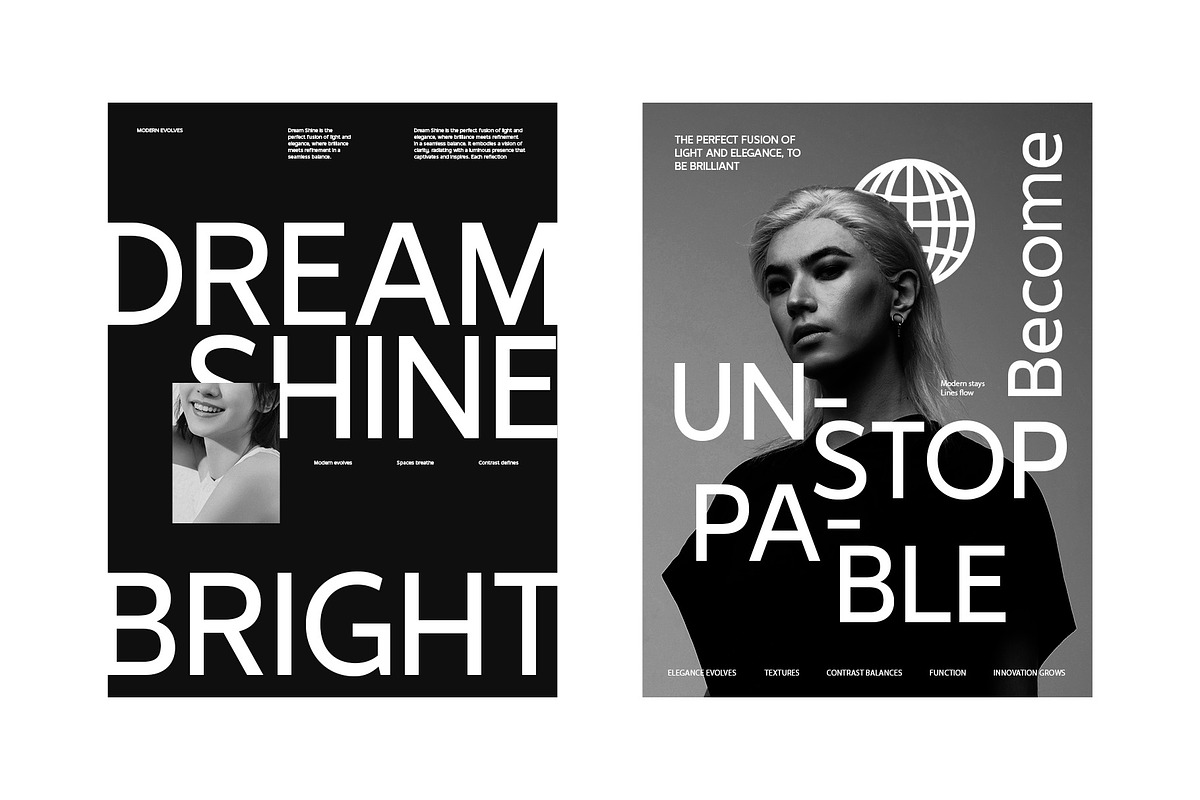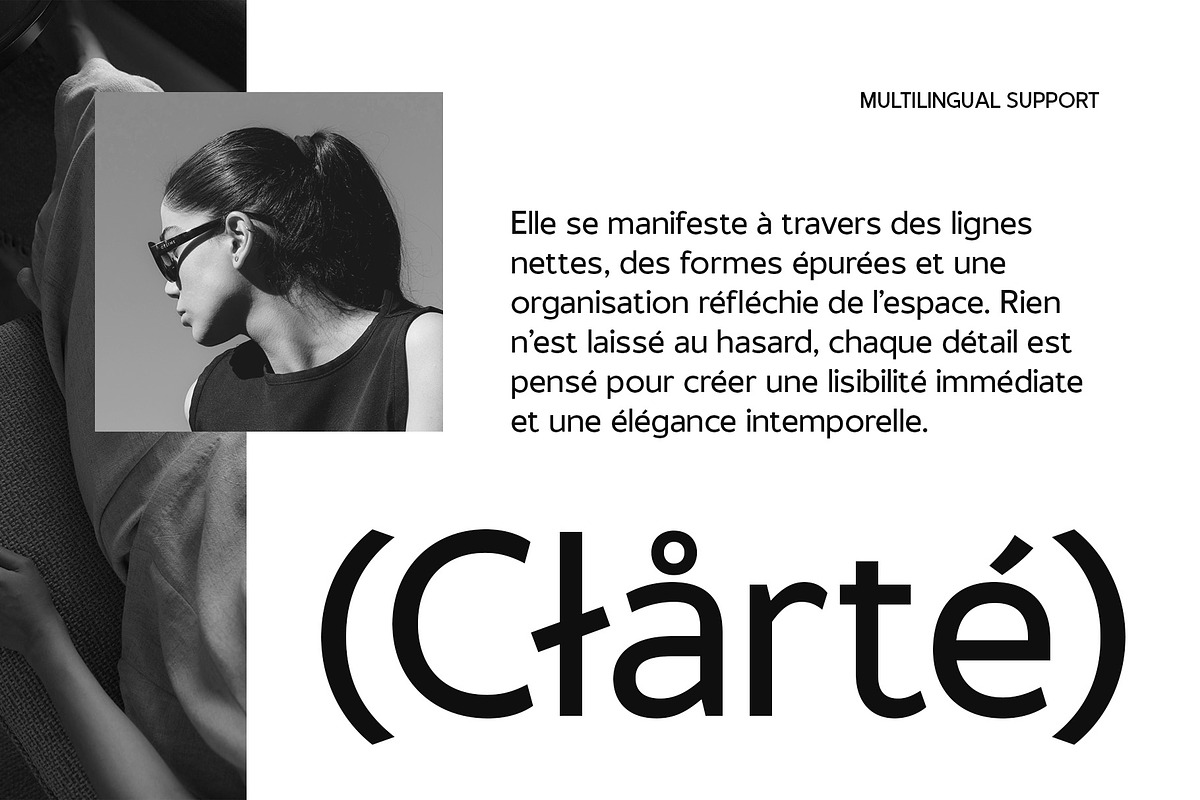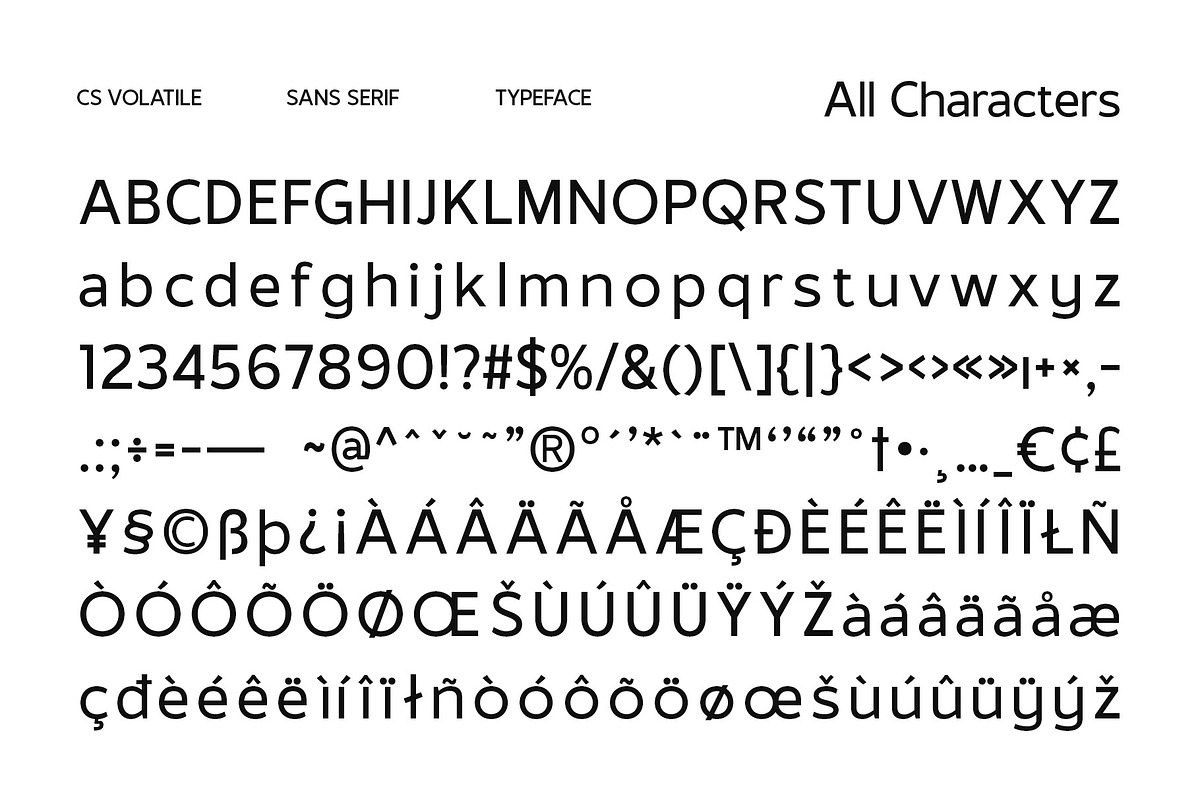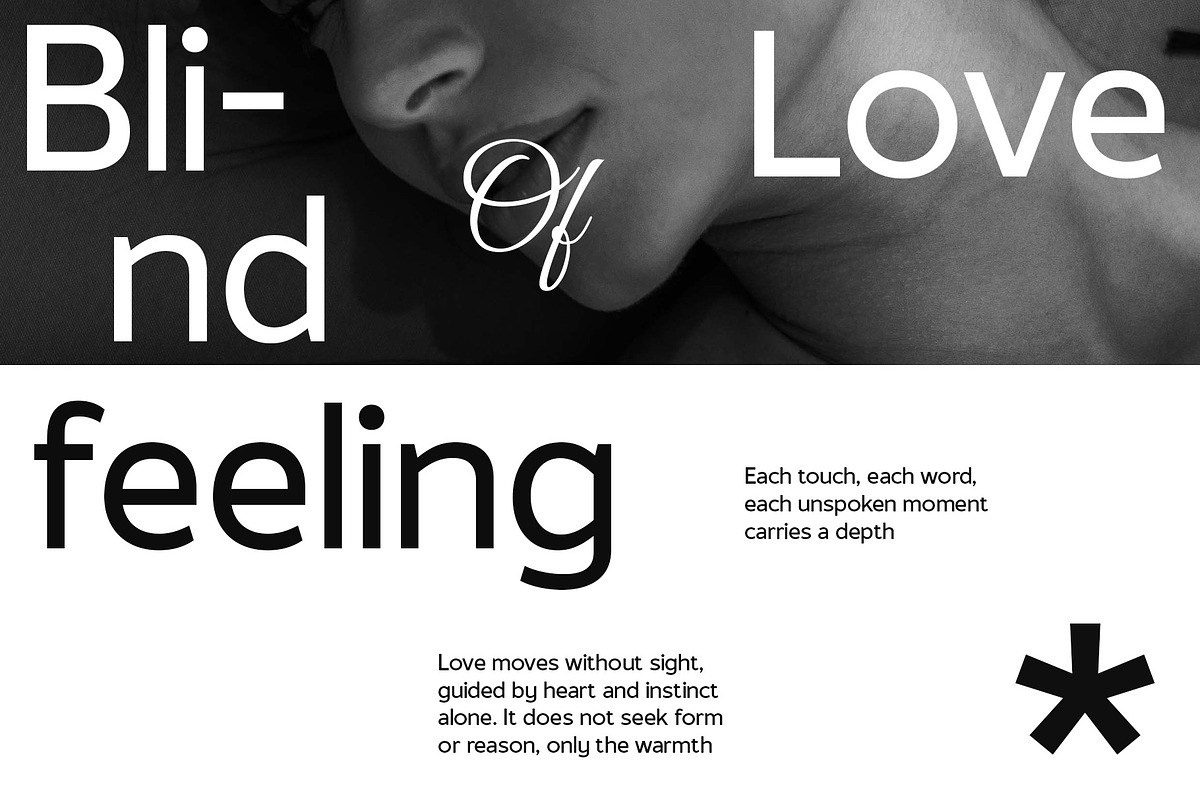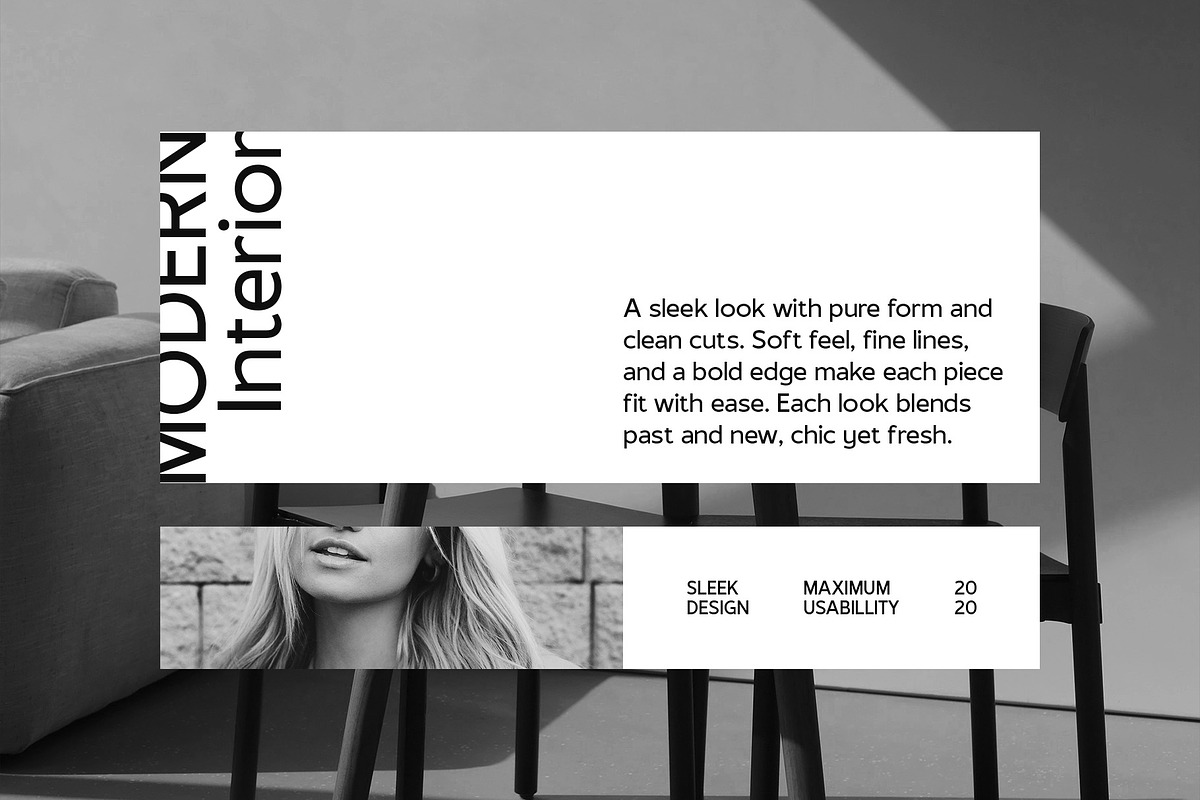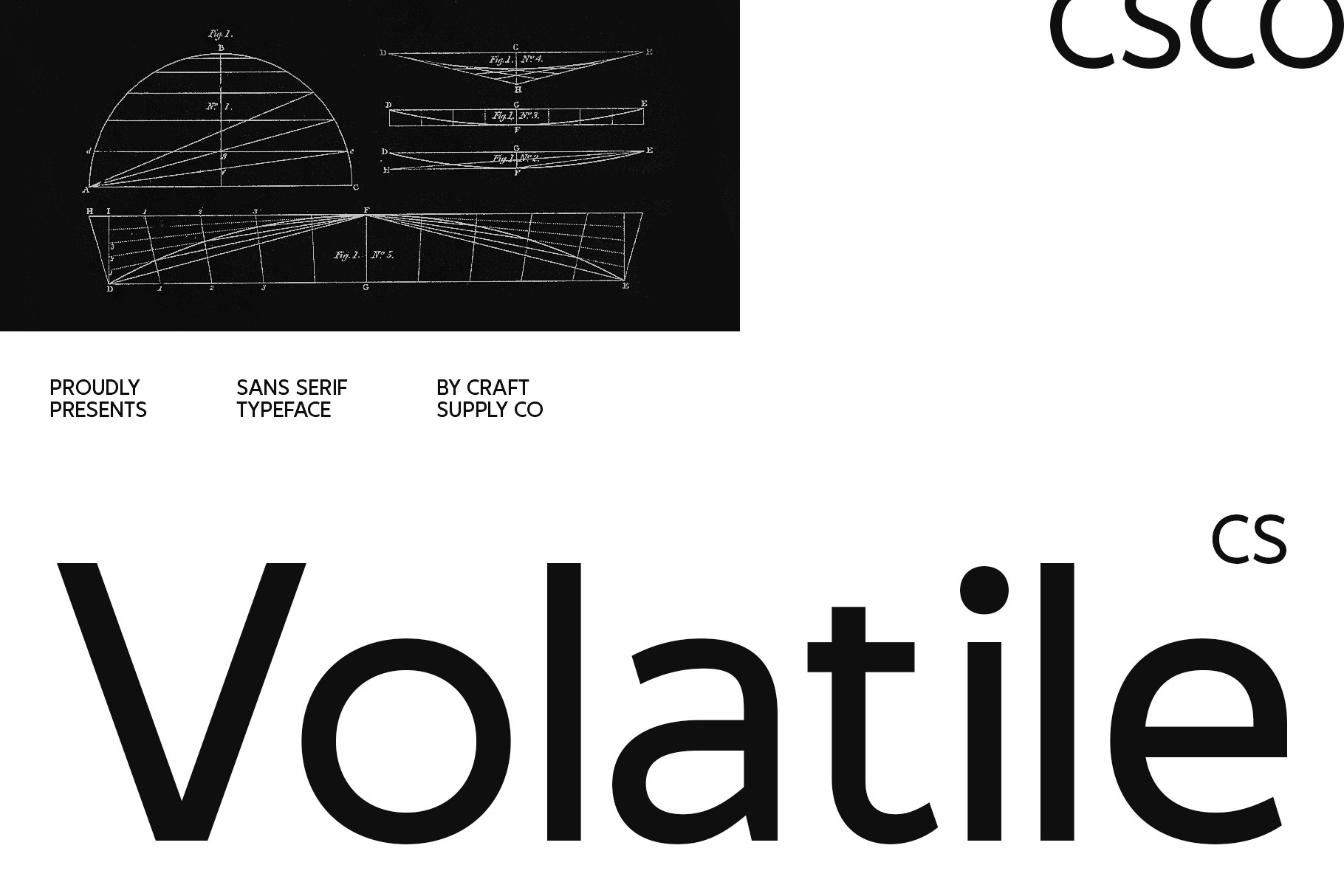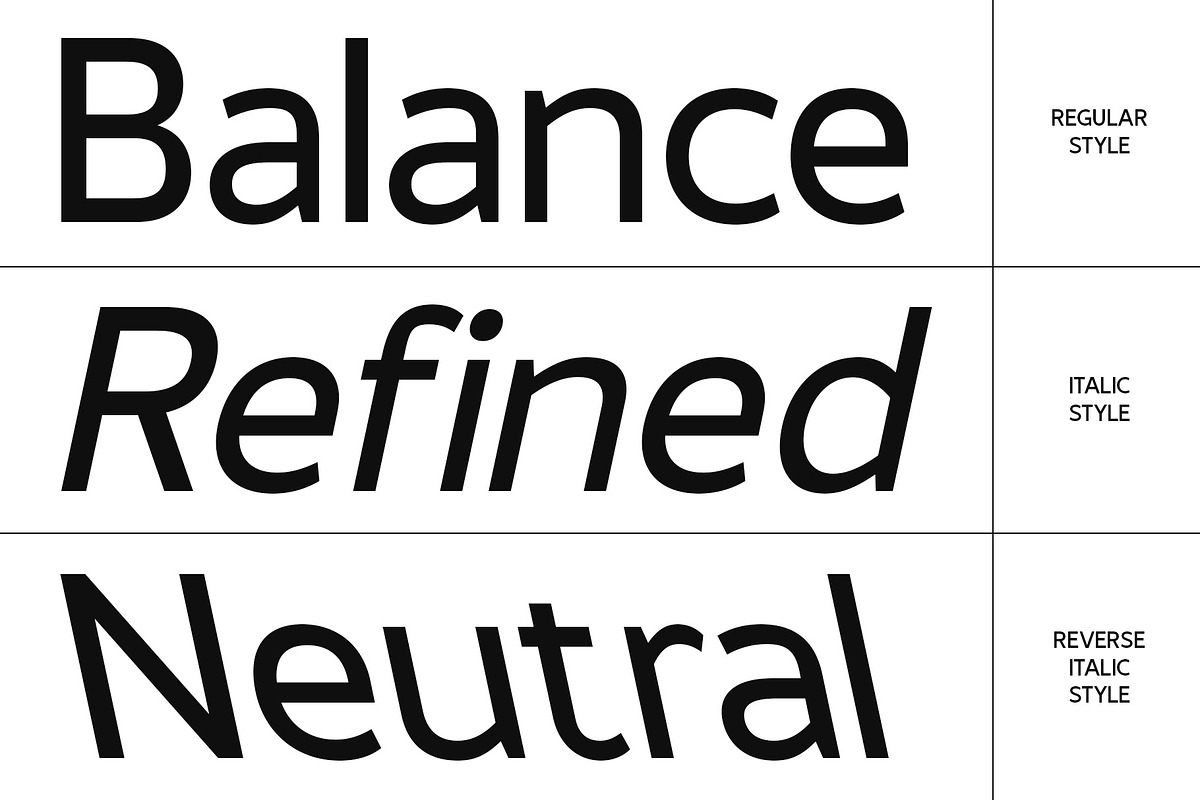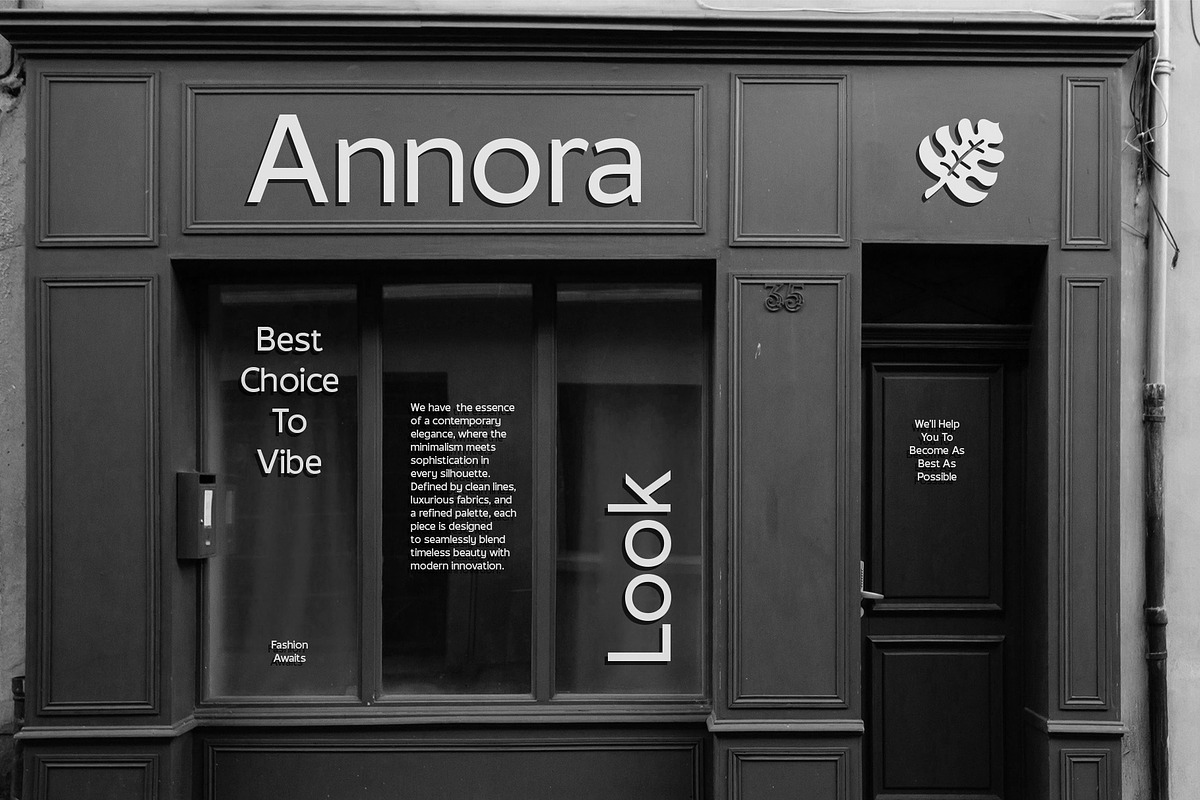
CS Volatile – Contemporary Font
CS Volatile – Contemporary Font: Modern, Sleek, and Professional
Geometric Sans Serif with a Contemporary Touch CS Volatile is a modern sans-serif font with a contemporary geometric structure, delivering a clean, balanced, and professional aesthetic. Designed for versatility, it seamlessly adapts to branding, corporate identities, editorial layouts, and digital interfaces, offering a refined and sophisticated presence in any project.
Minimalist Design for Maximum Impact Featuring precise lines and harmonious proportions, CS Volatile embodies modern elegance while maintaining exceptional readability and clarity. Its sleek and understated design enhances both print and digital applications, making it a reliable choice for designers seeking a polished, high-end look.
Perfect for Corporate and Editorial Use With its functional elegance, CS Volatile is ideal for corporate materials, magazines, web design, and UI/UX interfaces. Its well-structured letterforms ensure a strong, confident impression, reinforcing professionalism and visual appeal across various media.
A Versatile Typeface for Modern Designs Whether used for branding, digital experiences, or editorial compositions, CS Volatile delivers a timeless yet contemporary touch. Its ability to balance style, precision, and functionality makes it an essential font for any designer looking to create sophisticated and impactful visuals.